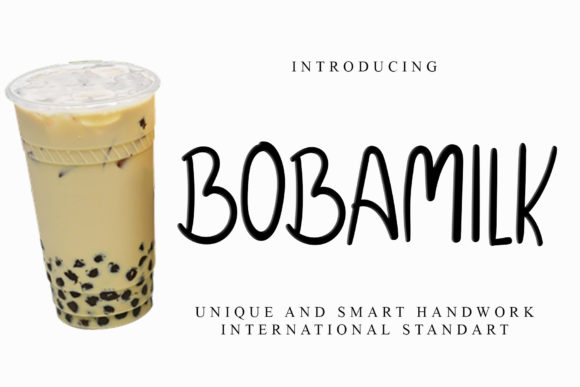
Dive into the world of Bobamilk Font, a captivating script font family reminiscent of sweet, creamy boba milk tea treat. Designed by the talented giartstudios, this font exudes warmth and charm, beckoning you to explore its delightful versatility.
Perfect for a wide range of creative projects, Bobamilk Font's enchanting style adds a touch of whimsy and elegance to any design. Whether you're crafting invitations for special occasions, creating eye-catching social media posts, or designing personalized merchandise, Bobamilk Font will elevate your work to new artistic heights.
Indulge in the myriad possibilities that Bobamilk Font presents. Its free-flowing characters dance across the page, carrying your words with grace and effortless beauty. Unleash your creativity and let Bobamilk Font transform your designs into enchanting masterpieces.
But why settle for ordinary when you can embrace the extraordinary? Bobamilk Font possesses a unique charm that captivates and engages your audience, leaving a lasting impression that lingers in their minds. Its distinctive style sets your designs apart from the mundane, making them stand out in a crowded digital landscape.
With Bobamilk Font, you hold the key to unlocking a world of creative possibilities. Its versatility knows no bounds, allowing you to effortlessly adapt it to various design projects. From playful invitations to sophisticated branding materials, Bobamilk Font seamlessly adapts, enhancing your designs with a touch of magic.